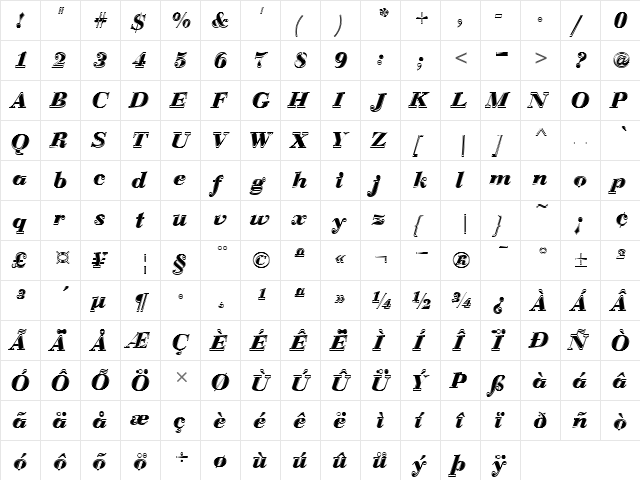
Bauer Bodoni D In1 Regular Font Preview
Bauer Bodoni D In1 Regular
Bauer Bodoni D In1 Regular Font Details
Design Context for Bauer Bodoni D In1 Typeface
Bauer Bodoni D In1 is a composed and adaptable typeface that performs quietly and consistently across a wide range of design contexts.
Pro Tip: Use Bauer Bodoni D In1 in both headline and body roles to test its range before committing to a single application.